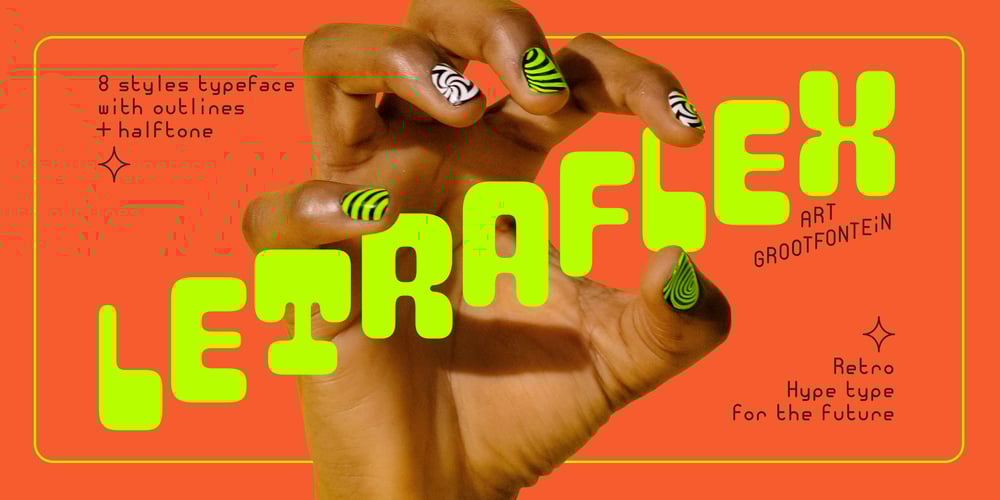
Letraflex Font Family was designed by Art Grootfontein and published by Art Grootfontein. Letraflex contains 8 styles and family package options. Letraflex is a bold retro-inspired typeface with a slightly futuristic style.The family is based on old computer lettering and Magnetic Ink Character Recognition, with a little contemporary twist including ink traps.Letraflex layered fonts provide users with a wide range of choices for any design project.This family is an excellent pick for eye-catching designs, including Headline, Poster, Branding, Logos, Concert, and any other heavy design!Take a look at this video to see Letraflex in motion!